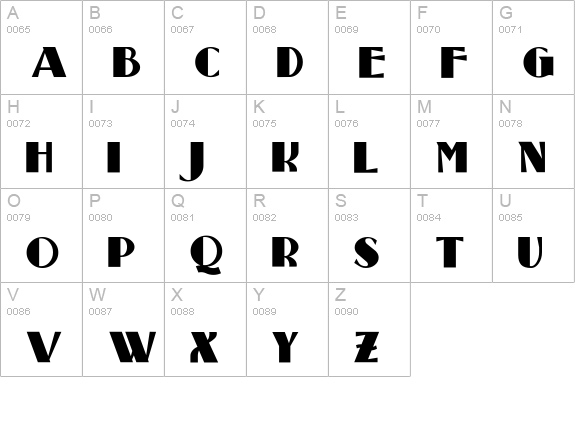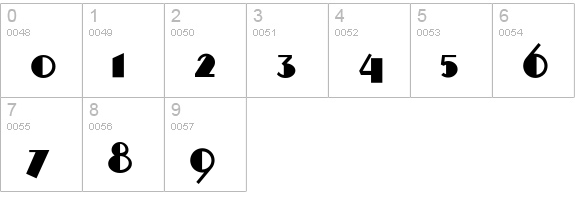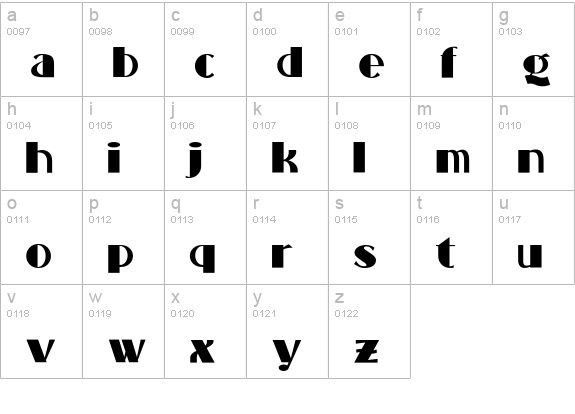
StandingRoomOnly Font Details
Introducing StandingRoomOnly, a captivating and versatile font that will leave a lasting impression on any design project. This font embodies a perfect balance between elegance and modernity, making it suitable for a wide range of creative applications. With its clean lines and distinctive curves, StandingRoomOnly exudes a sense of sophistication that is sure to elevate your designs to new heights. Whether you're working on branding materials, advertisements, invitations, or any other project that requires a touch of class, this font will effortlessly add a touch of refinement. What sets StandingRoomOnly apart from the rest is its unique ability to seamlessly blend in with any design style. Its versatility allows it to adapt to both bold and minimalist designs, ensuring that it remains a reliable choice for any project, big or small. One of the most remarkable aspects of StandingRoomOnly is that it is freely available to download at FontsMarket.com. This means that you can enjoy the elegance and versatility of this font without any cost. So, whether you're a professional designer or an aspiring creative, you can now effortlessly enhance your work with this remarkable font. So why wait? Download StandingRoomOnly today and let its timeless charm and free availability inspire your next design masterpiece. With this font in your toolkit, you're sure to create stunning visuals that will leave a lasting impression on your audience.